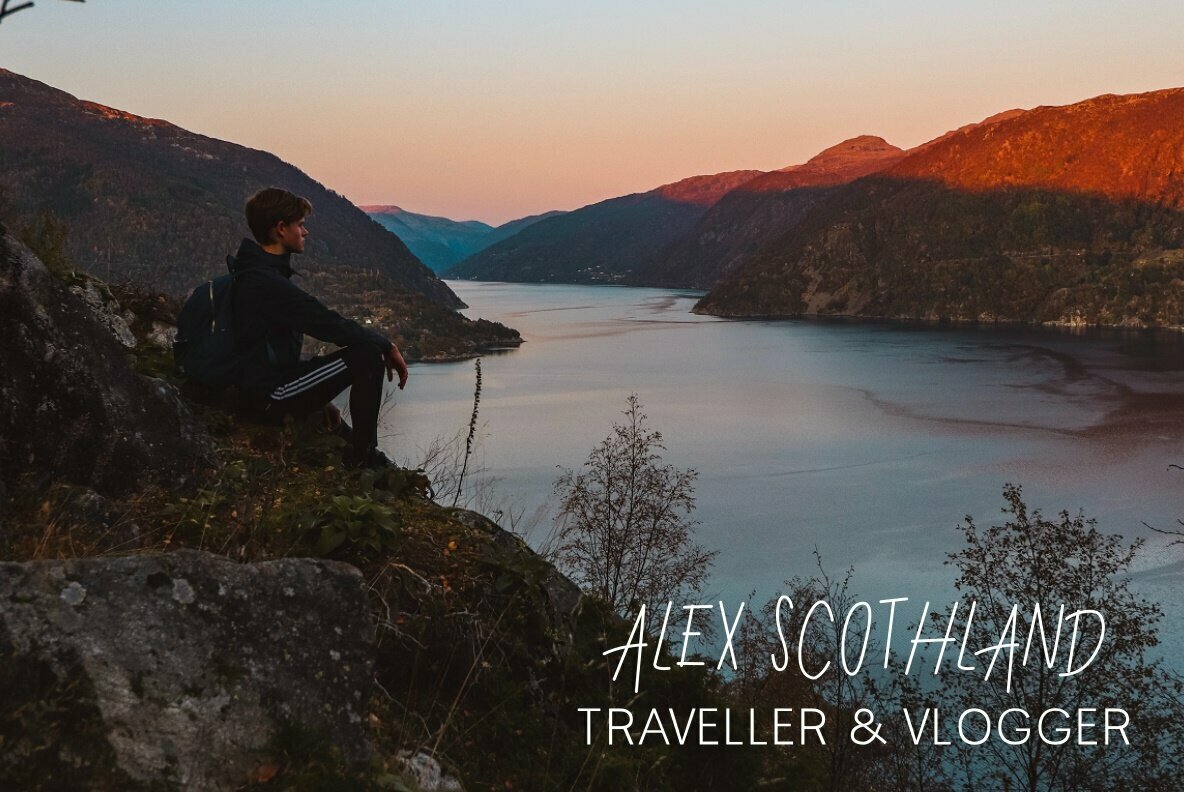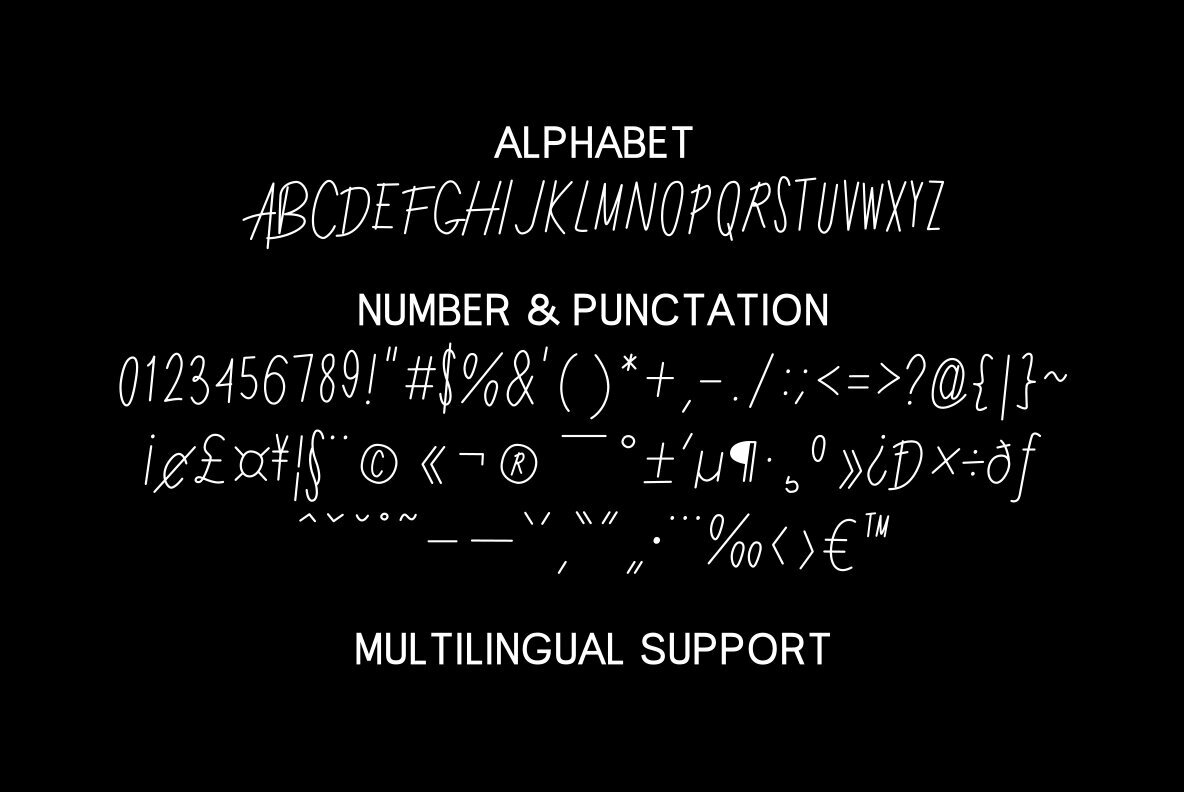
Aish Font
Aish
Aish Bold
Aish font is an authentic handwritten font. This font combines simple style with authenticity of the font in its creation. suitable for use in simple themed graphic designs.
Making a font I always pay attention to the quality and value of the font to create the best font. For me, fonts not only function as visual communication, but also as a form of expression that expresses the feelings that the creator of the font wants to convey. and my principle is to always prioritize quality...